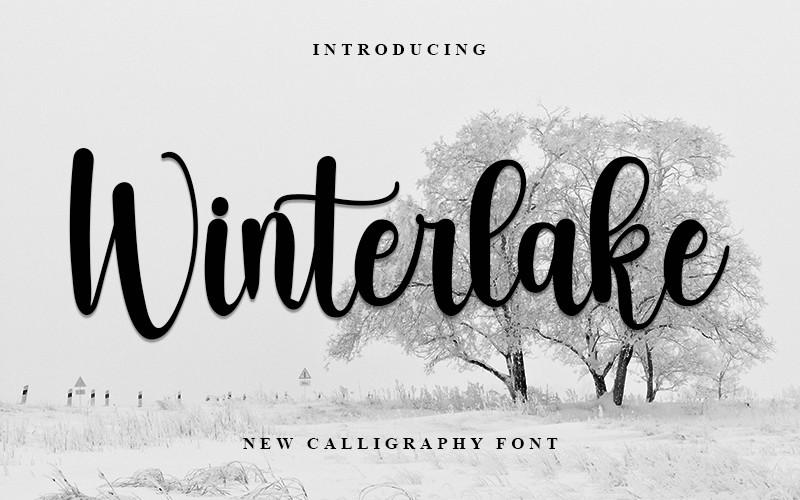
Winterlake Font Description
Winterlake is a stylish handwritten font with a contemporary atmosphere and impeccable form, inspired by a timeless classic calligraphy. Not too thin and not too thick, balanced and varied, this font was designed to enhance the beauty of your projects.